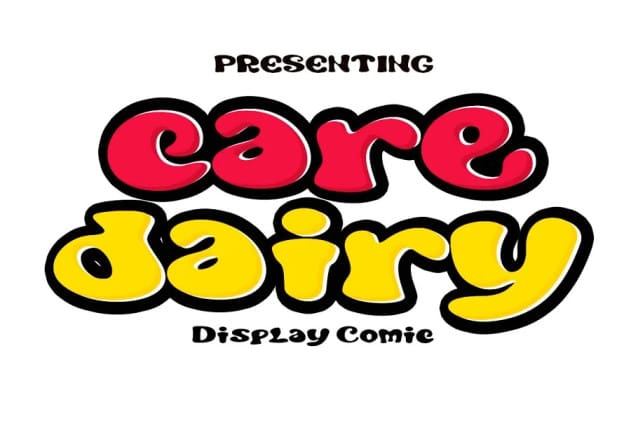
Care Dairy Font
Care Dairy Font, is a cute and fun display font with an original comic style. Use these display fonts to add to your design library in an easy way to find custom comic display variations on any design idea you can think of!